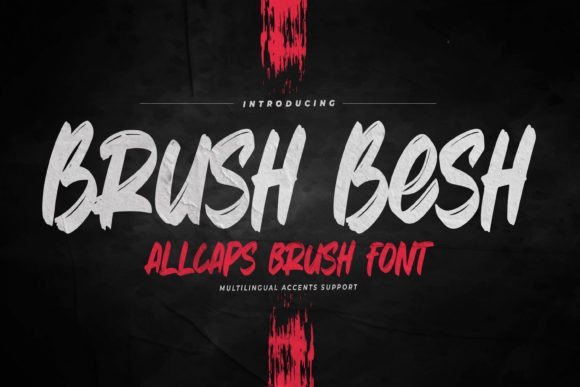
The Perfect Brush for Your Next Creative Project
As a designer, there’s nothing quite like the thrill of bringing a new idea to life. The moment when your vision starts to take shape, and you see the potential for something truly special. It’s a feeling that never gets old, and it’s what drives us to keep pushing the boundaries of what’s possible. And that’s where the Brush Besh Font comes in – a versatile and stylish caps brush font that’s perfect for adding a touch of personality to your next creative project.
Whether you’re working on a logo, a printed quote, or a product packaging design, the Brush Besh Font is a valuable tool in your arsenal. Its textured natural style and classy feel make it a great choice for designers who want to add a touch of elegance to their work. With its clear style and dramatic movement, this font is sure to make your designs stand out from the crowd.
- Unique Characteristics: Brush Besh Font features a unique, hand-painted style with subtle texture and imperfections, giving it a distinctive and artistic feel.
- Style Variations: Brush Besh Font offers multiple style variations, including regular, bold, italic, and bold italic, allowing users to customize the look and feel of their text.
Brush Besh Font Review
Overall, I think Brush Besh is a decent font. There are some things that it does well, but also some areas where it falls short.
- ✨ Unique Handwritten Feel: Brush Besh has a distinct, handwritten feel that sets it apart from more common fonts.
- ✨ High Legibility: Despite its cursive nature, the font is surprisingly easy to read, especially at larger font sizes.
- ✨ Wide Character Set: Brush Besh includes a wide range of characters, including Cyrillic and Greek alphabets.
- ⚠️ Limited Font Sizes: While Brush Besh is legible at larger font sizes, it can become difficult to read at smaller sizes.
- ⚠️ Some Character Issues: There are a few characters that don’t quite line up properly, which can be distracting.
- ⚠️ Limited Stylistic Variations: Brush Besh is a relatively straightforward font with limited stylistic variations.
While Brush Besh has some unique qualities and is generally easy to read, its limitations prevent it from being a go-to font for most projects. It’s a good option for specific use cases, but may not be the best choice for more general design needs.
Brush Besh Font is ideal for creating hand-written, handwritten-style text and headings. It’s commonly used in creative projects such as:
1. Social media graphics
2. Blog posts and articles
3. Print materials such as business cards and brochures